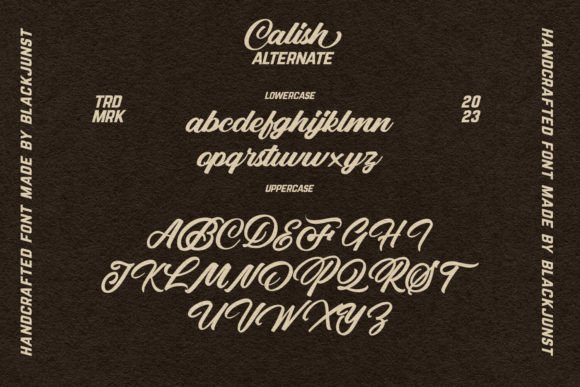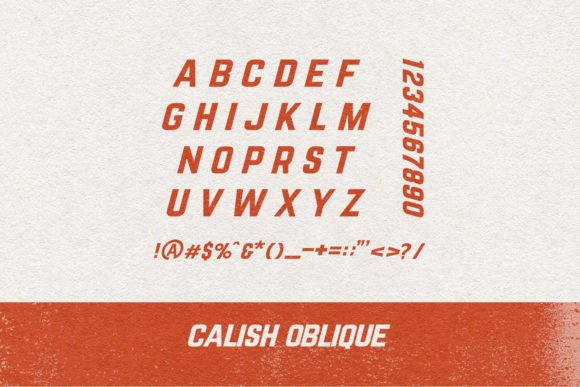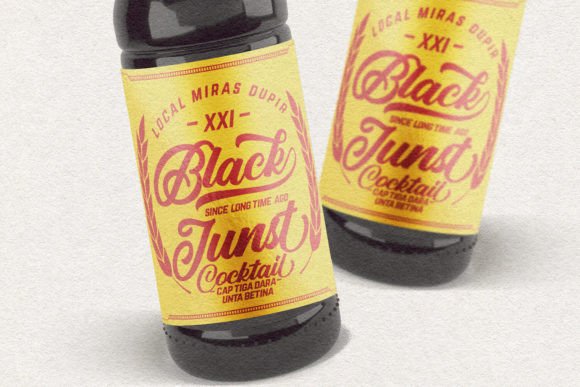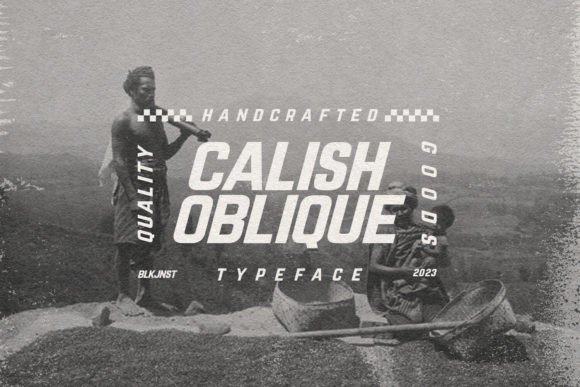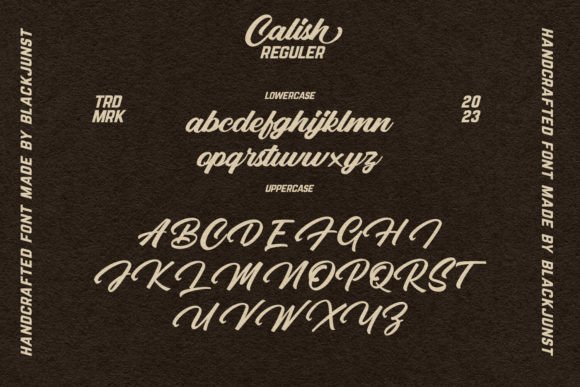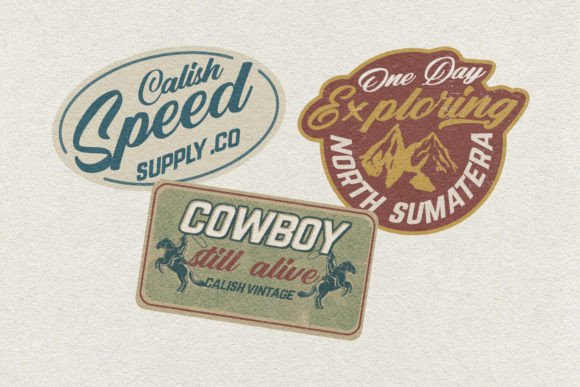
The Retro Charm of Calish Font: A Designer’s Delight
I still remember the frustration of working on a project, hours spent searching for the perfect font, only to end up with something that just didn’t feel right. My client wanted a retro vibe, something that would transport their brand back to the golden age of advertising, but with a modern twist. That’s when I stumbled upon Calish Font, a retro script font that has since become my go-to for all things vintage-chic.
An Honest Review of Calish Font
- ✨ Unique and original curves that give it a seductive charm
- 💃 Perfect for headlines, titles, and short paragraphs
- 🎨 Great for branding, packaging, and advertising projects
While Calish Font is an amazing addition to any design project, there are a few things to keep in mind:
- ⚠️ Limited availability of Cyrillic or non-English characters
- Experiment with OpenType features like ligatures and stylistic alternates to add personality to your text
Exploring Alternatives to Calish Font
If you’re looking for similar fonts or want to explore other options, here are a few recommendations:
- Pacifico: A beautiful, modern script font with a relaxed vibe. Perfect for lifestyle brands and creative projects.
- Great Vibes: A fun, energetic script font with a mix of bold and delicate strokes. Great for headlines and attention-grabbing titles.
- Alex Brush: A elegant, handwritten font with a touch of sophistication. Suitable for luxury brands and high-end projects.
- Carolyna Pro: A refined, classic script font with a vintage feel. Ideal for formal events, weddings, and corporate branding.
The Story Behind Calish Font
Calish Font was born out of a passion for retro design and a desire to create something unique. Its creator, a talented type designer, drew inspiration from classic advertising and signage of the 1950s and 60s. With a keen eye for detail and a love for typography, they crafted a font that would evoke the charm of a bygone era while still feeling modern and fresh.
| Font Name | Calish Font |
| Author | Black Junst |
Q: What is the best way to use Calish Font?
A: Calish Font is perfect for headlines, titles, and short paragraphs. Experiment with different sizes, colors, and OpenType features to make it shine.
Q: Is Calish Font available in different languages?
A: Calish Font currently supports English and some European languages. If you need support for non-English characters, you may want to explore alternative fonts.